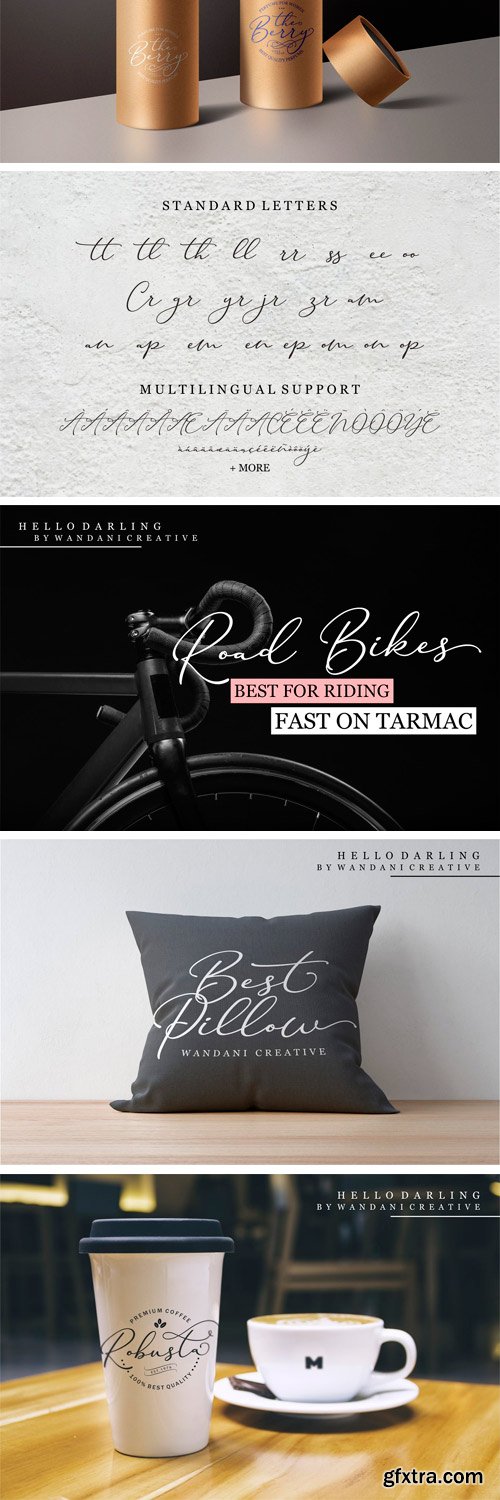
Hello Darling - a new fresh & modern script with a signature style, decorative characters and a dancing baseline! So beautiful on invitation like greeting cards, branding materials, business cards, quotes, posters, and more design concept!